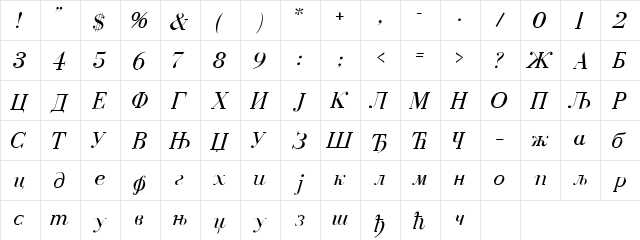
BodoniCir Italic Font Preview
BodoniCir Italic
Design Context for BodoniCir Typeface
BodoniCir is a composed and adaptable typeface that performs quietly and consistently across a wide range of design contexts. The slanted form adds forward momentum and visual energy.